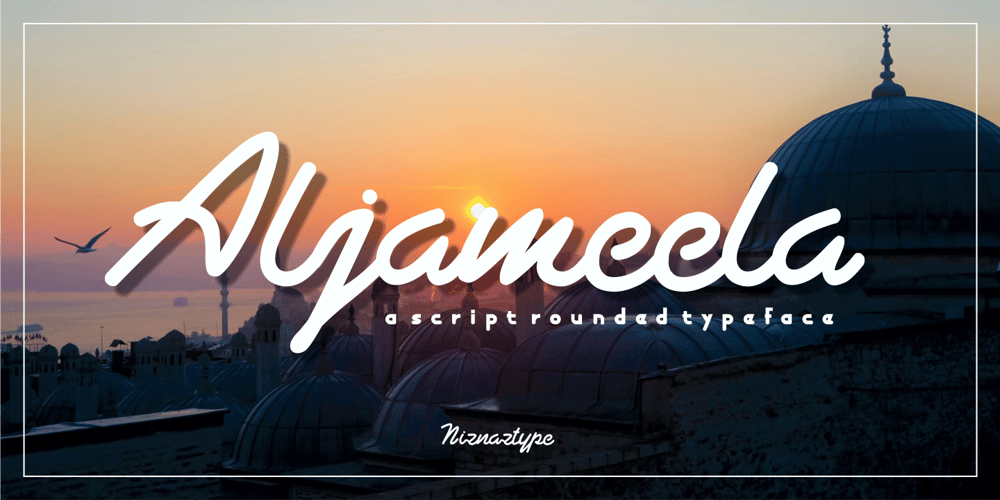
Aljameela
Aljameela font
Aljameela Font Family was designed by Muhammad Nazarudin and published by Niznaztype. Aljameela contains 1 styles and family package options. Aljameela is a script typeface that has a rounded corner style with unique, simple and easy characteristics. Aljameela inspired from the shape of building of the Muslim Culture that is dominated by curved and rounded shapes like the pillars and domes of a mosque.Aljameela is very recommended and perfect for graphic designs that use a script typeface. It is like tagline, book cover, book text, posters, signature styles, titles, postmodern designs, web design, logos, branding, advertising, posters, invitations and more.Aljameela is suitable for all modern and classic of graphic designs. You will happy with Aljameela.